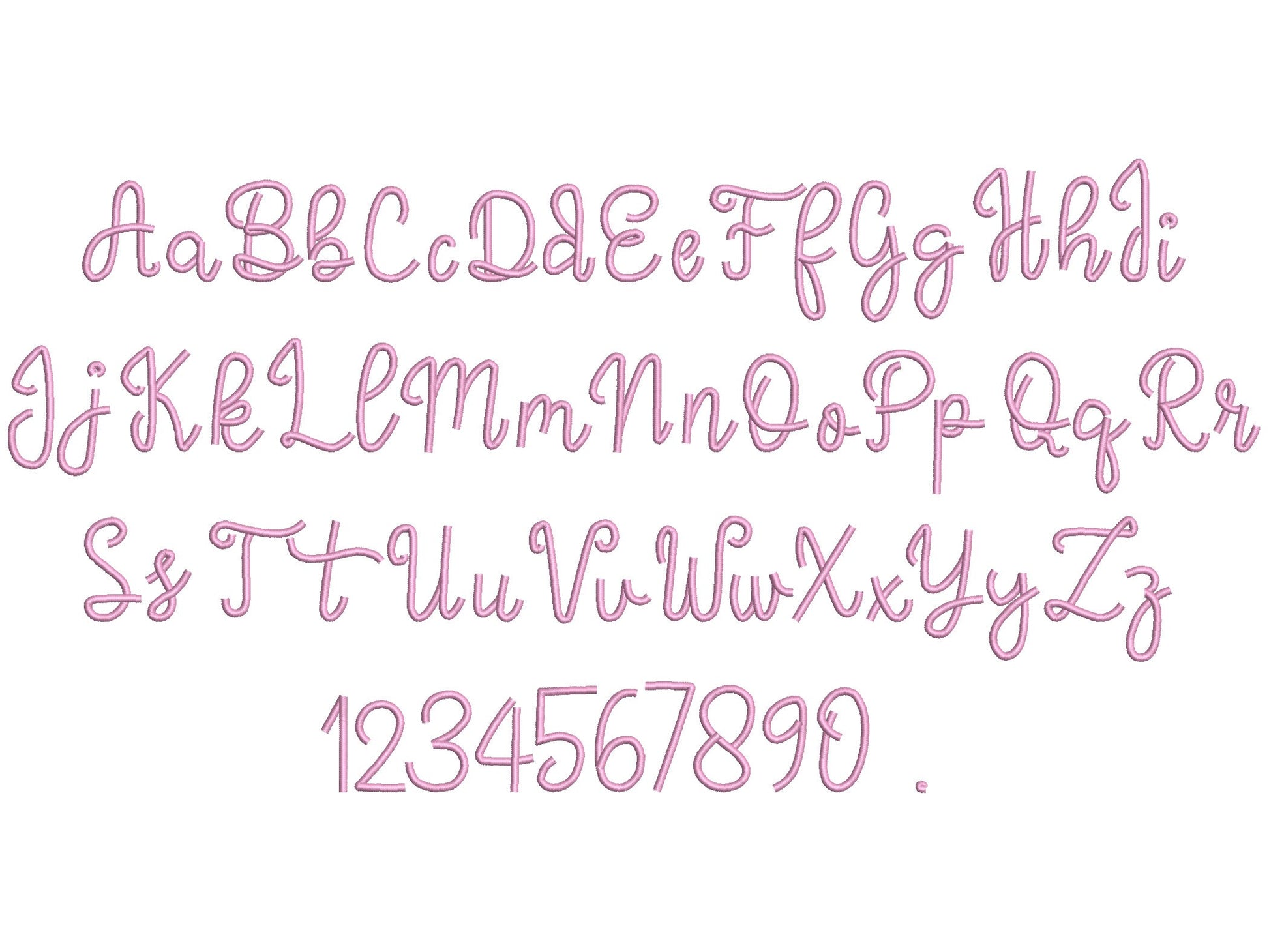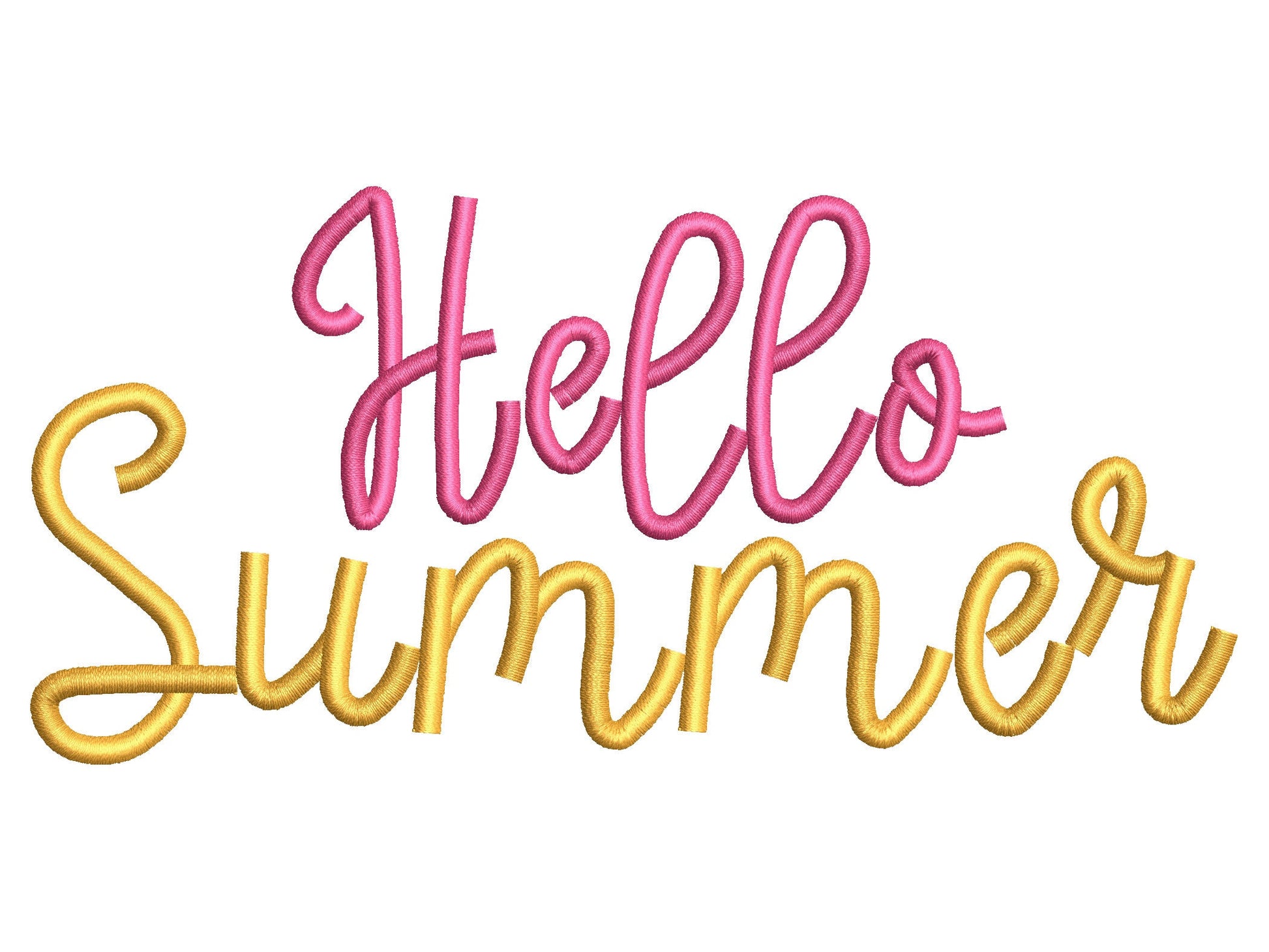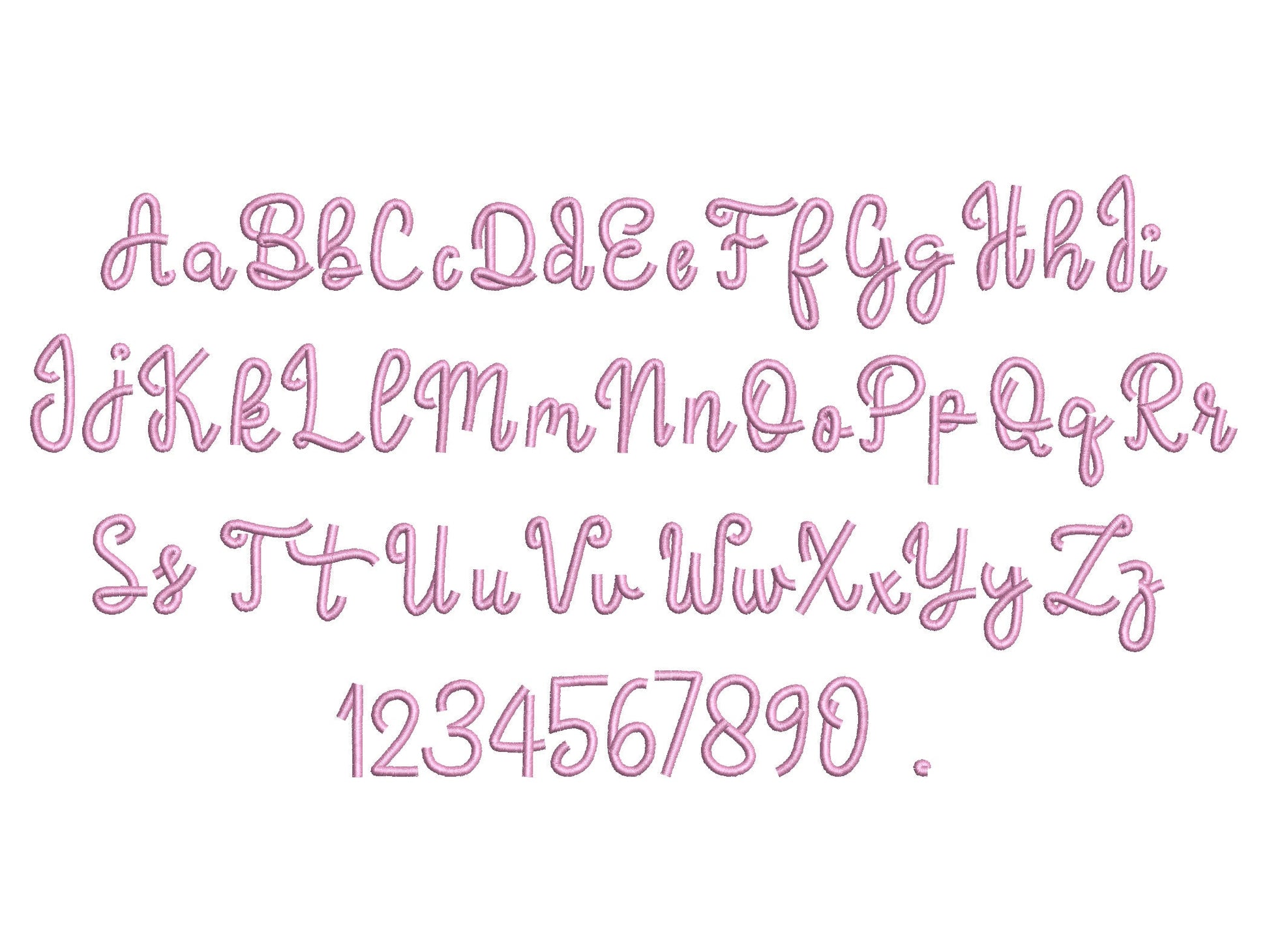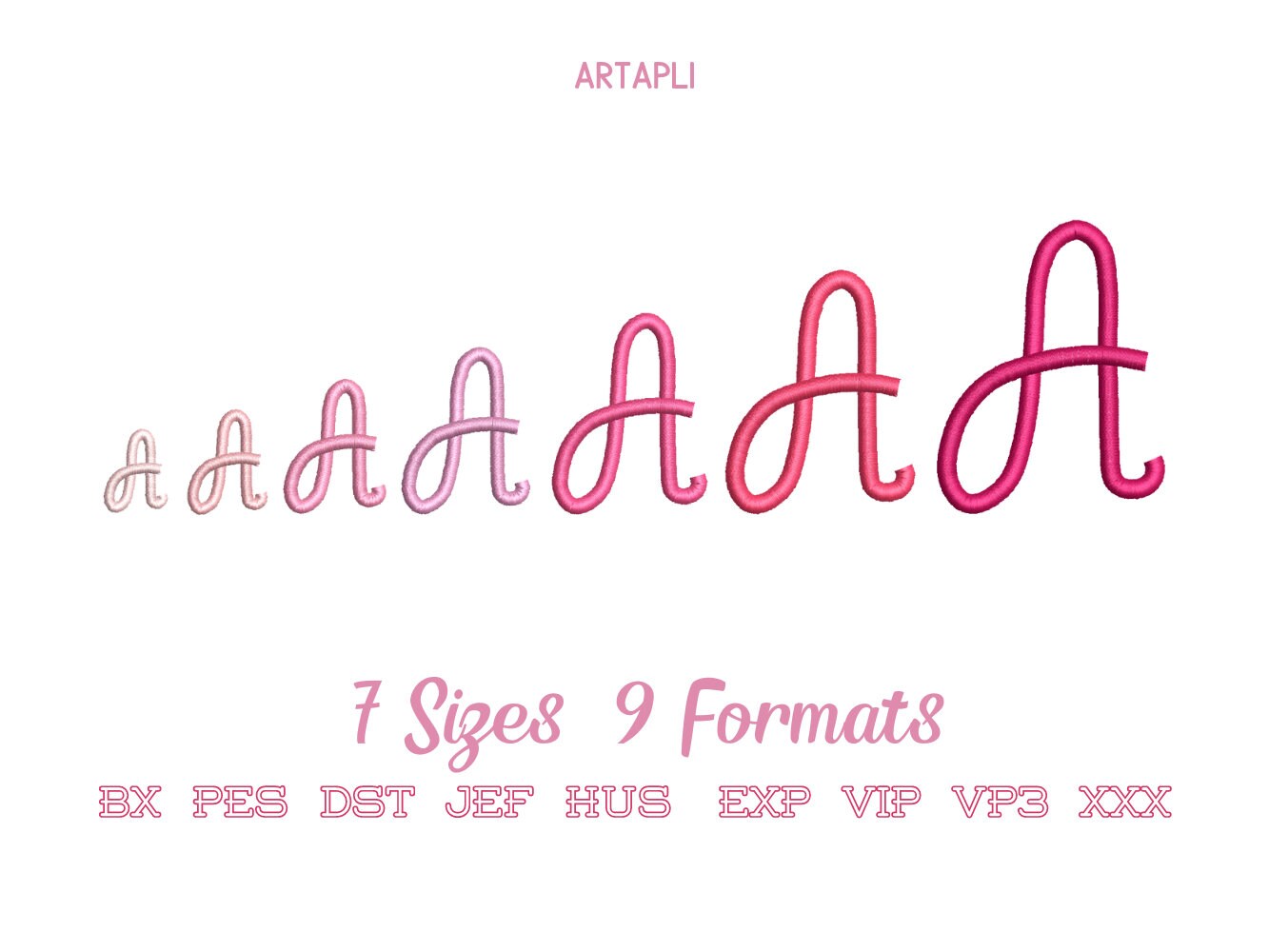
Satin Stitch Handwritten Script Font
Or click to open the linkA playful satin stitch script font for kids' and baby names, monograms and small sayings.
Uppercase and lowercase letters, numbers 0 to 9 and a period, in seven sizes: 0.7, 1, 1.2, 1.4, 1.7, 2 and 2.5 inches.
- Satin stitch script font
- Uppercase and lowercase letters, numbers 0-9, period
- 7 sizes, 0.7 to 2.5 in